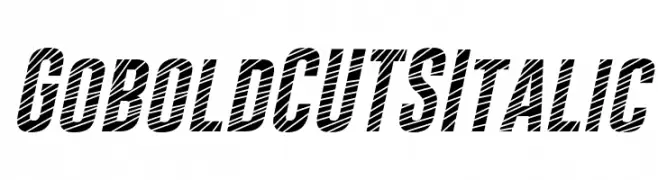
A bold, modern font with unique diagonal cut-out patterns.
A bold, italicized font with diagonal cuts for a dynamic, edgy look.
A bold, decorative font with diagonal stripes for a dynamic look.
A bold, decorative font with diagonal striped patterns for a modern, edgy look.
A modern, decorative font with diagonal stripes and bold geometric shapes.
A bold, decorative font with a unique diagonal stripe pattern.
A bold, decorative font with diagonal stripes for a dynamic look.